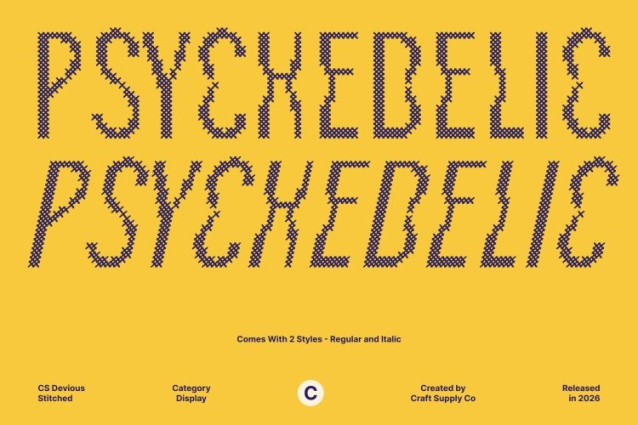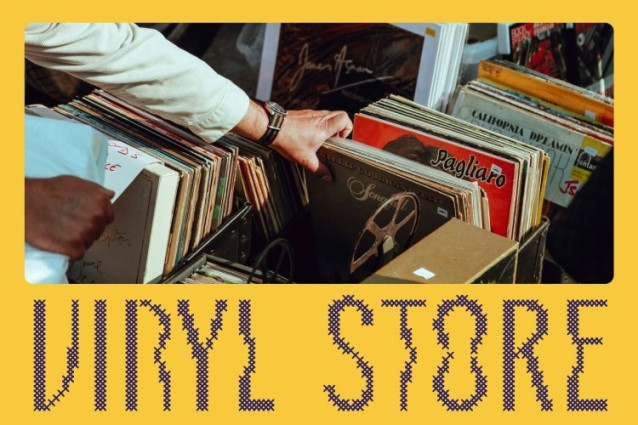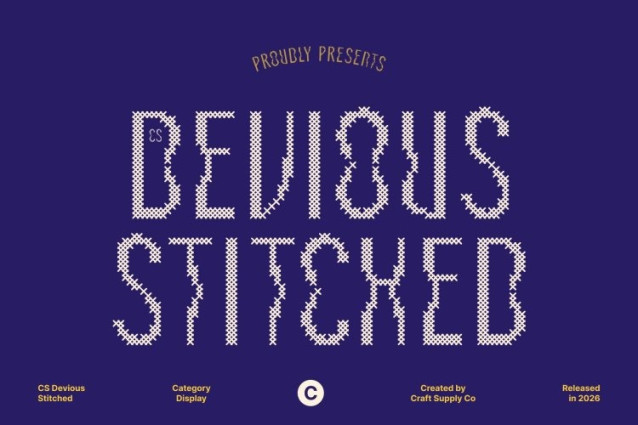
CS Devious Stitched Font
CS Devious Stitched Font – This is a modern psychedelic display font filled with curved, distorted letterforms that create a cheerful and funky impression. Its unconventional shapes produce a bold, eye-catching presence, enhanced by dynamic visual energy that instantly sparks curiosity and attention.
Designed for Creative Expression
Perfect for projects that celebrate creativity and joy, this font shines across music event posters, product packaging, merchandise, and contemporary artwork. Its lively personality adapts effortlessly to a wide range of creative contexts, helping your message connect with the right audience in a memorable way.
Playful Atmosphere with Vibrant Personality
The unique shapes and whimsical style of this font create a playful and energetic visual atmosphere. Whether you’re promoting a music festival, designing bold branding, or crafting expressive artwork, this font adds a distinctive touch that strengthens your visual identity and amplifies your message.
Stand Out with Psychedelic Energy
If your project needs excitement, originality, and visual impact, this font delivers a striking and imaginative style that ensures your designs stand out and stay unforgettable.